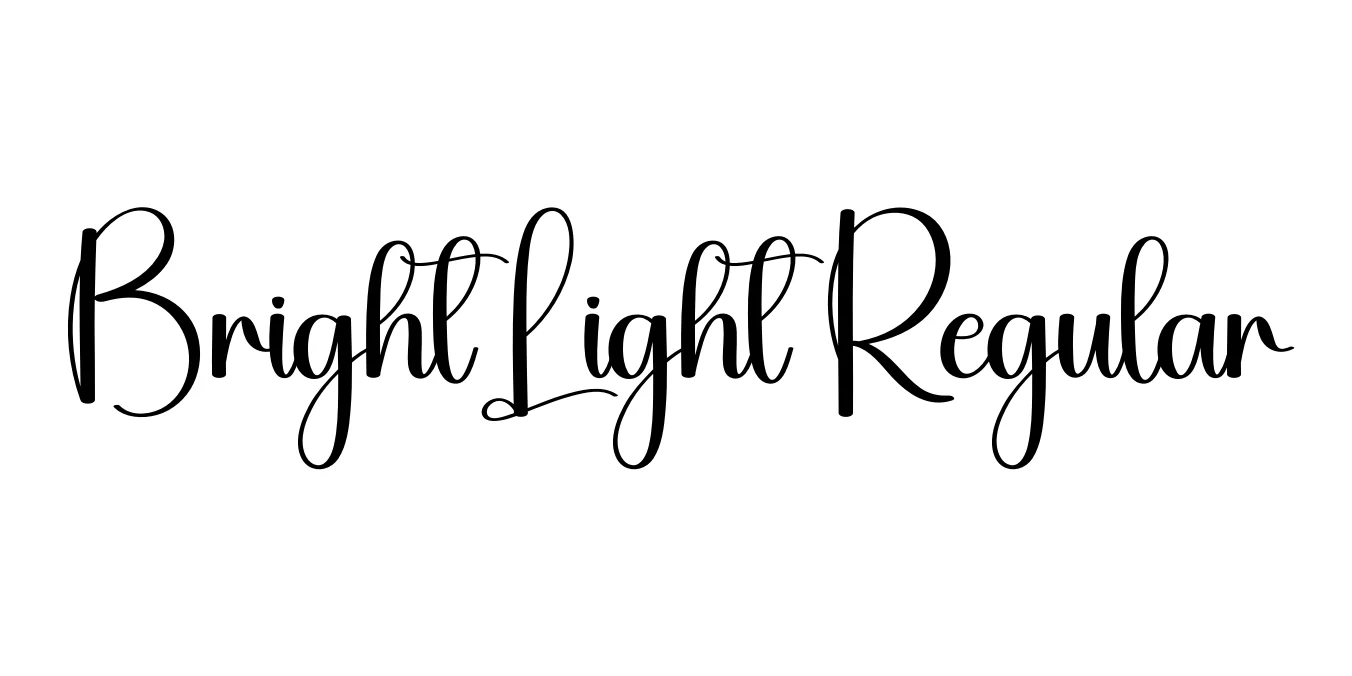
Bright Light Regular
Designed by Fitriyawan (Inspirationology)
Bright Light Regular was meticulously crafted to serve as a bridge between traditional calligraphy and modern digital design. It features elegant, fluid strokes that convey a sense of sophistication and artistic flair. The font was designed with a focus on natural character connections, ensuring that every word written in this typeface appears as if it were hand-penned by a professional calligrapher.
Over time, Bright Light Regular has become a staple for graphic designers working in the luxury and lifestyle sectors. Its balanced weight and smooth transitions make it exceptionally versatile, performing beautifully in both high-resolution print and on digital screens. Whether used for intimate wedding stationery or high-end corporate branding, the font adds a layer of exclusivity and grace to any creative project.
Bright Light Regular Best Uses
Perfect for creating elegant and personalized stationery for special events.
Ideal for luxury brand logos and visual identity projects that require a sophisticated touch.
Great for creating inspirational quotes and eye-catching Instagram graphics.
Adds a premium and artisanal feel to product labels and packaging designs.